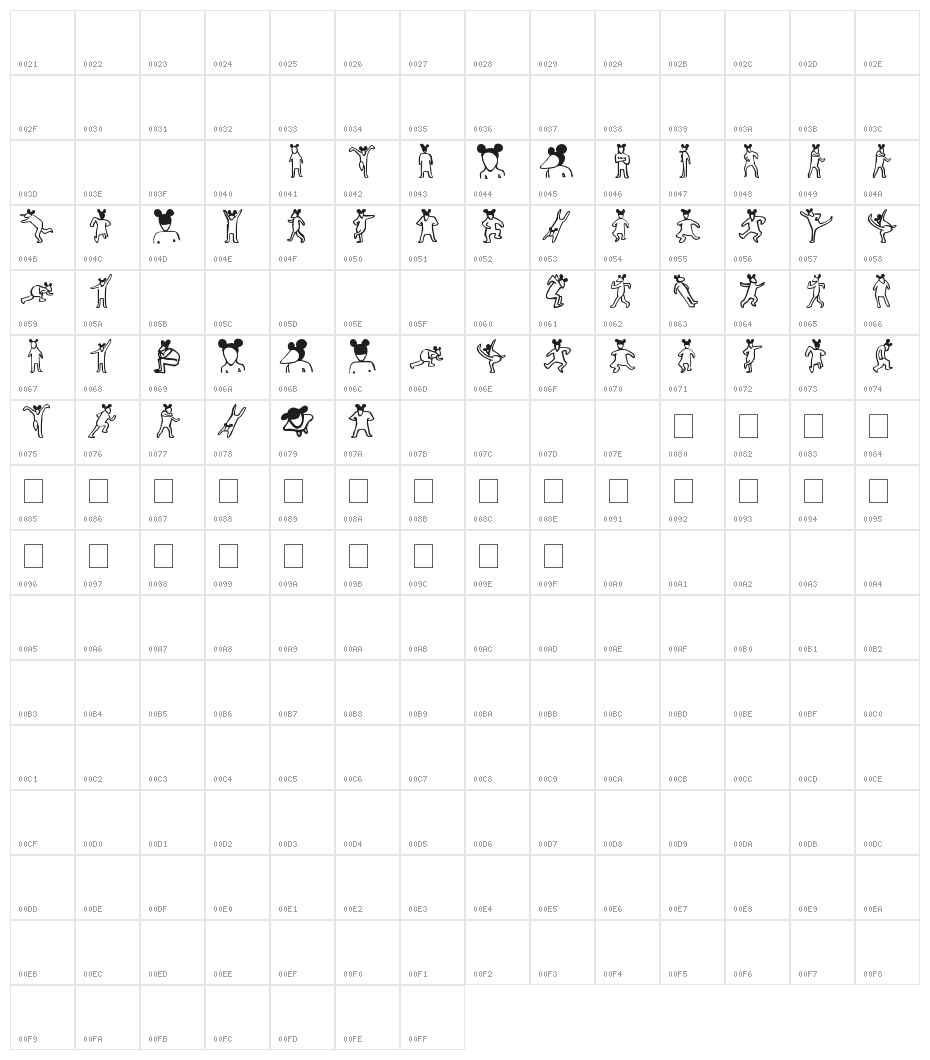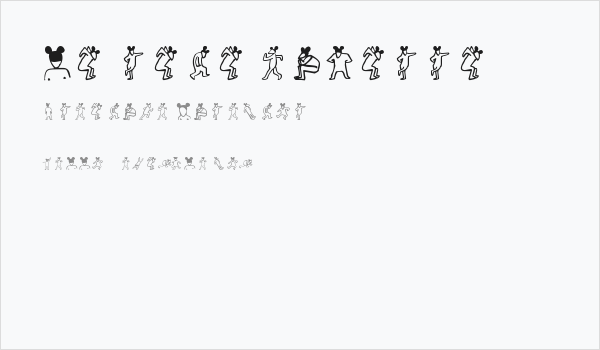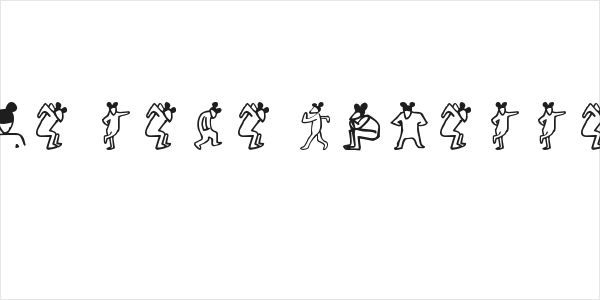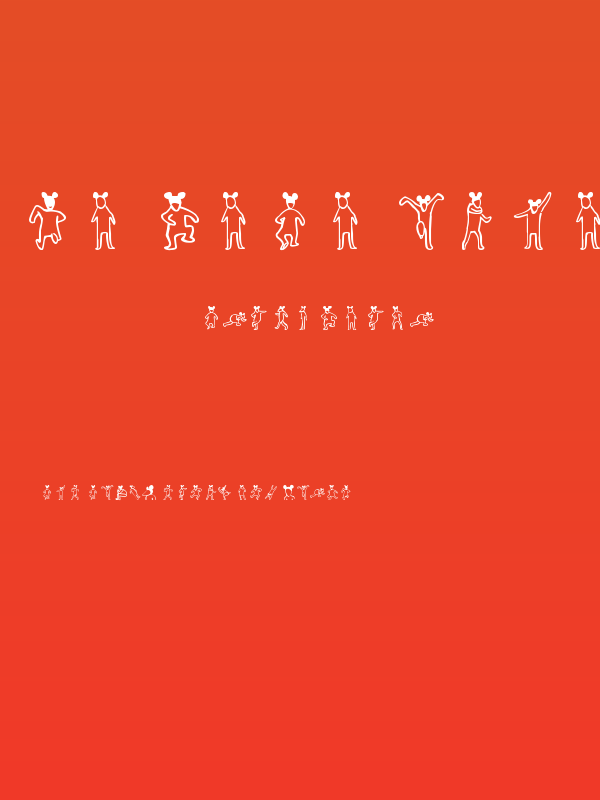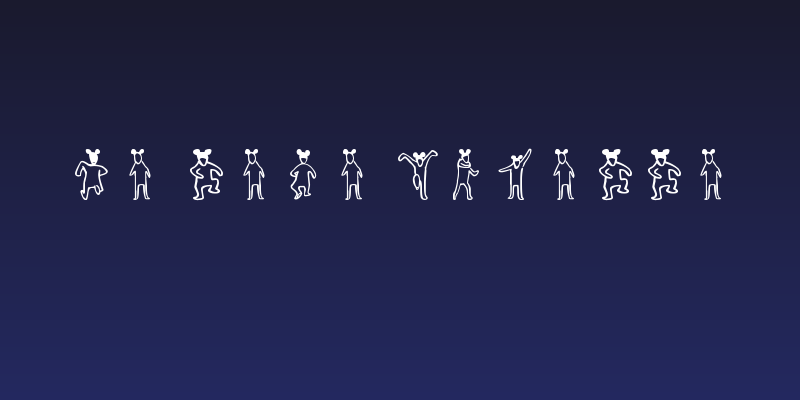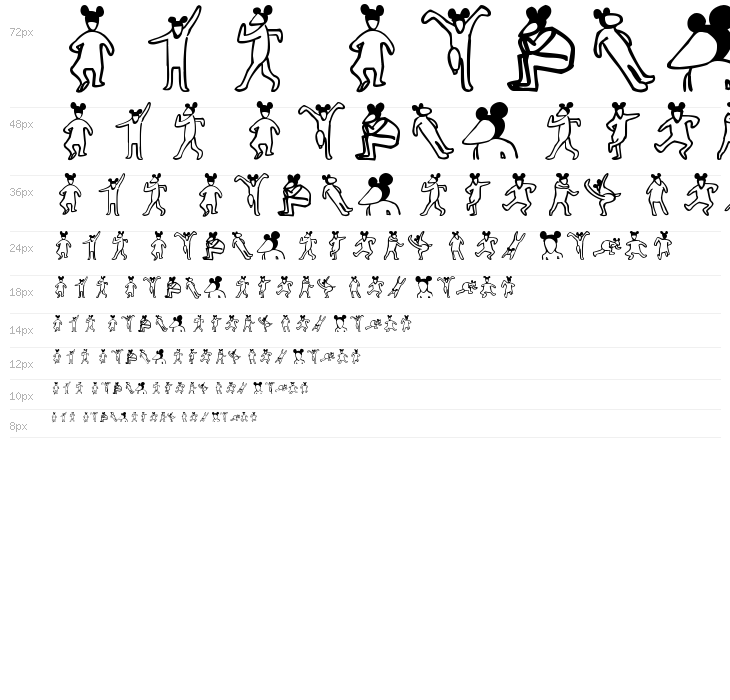
la rata bizarra Font
la rata bizarra Description
A playful and whimsical display font featuring hand-drawn characters with exaggerated mouse-like ears and expressive poses, each glyph resembling a dancing or moving figure rather than traditional letterforms.
| Overall Style | Whimsical, Playful, Artistic |
| Use Case | Logos, Headlines, Posters, Artistic projects |
| Proposed Projects | ChildrenΓ’β¬β’s books, event posters, playful branding, party invitations, creative art projects. |